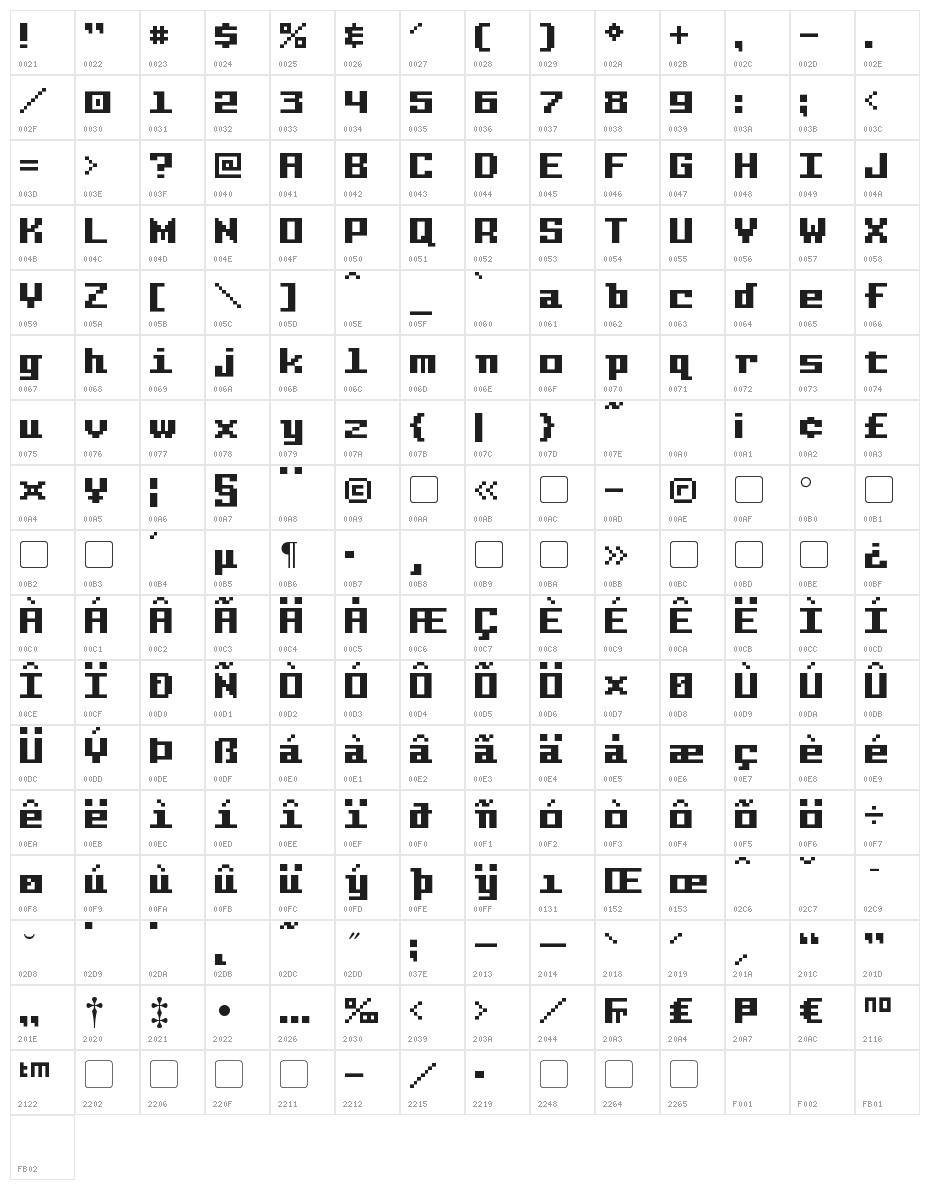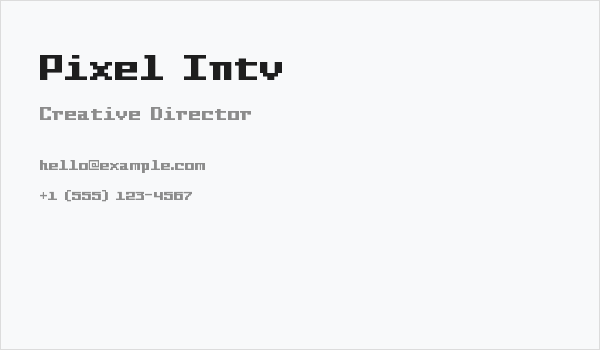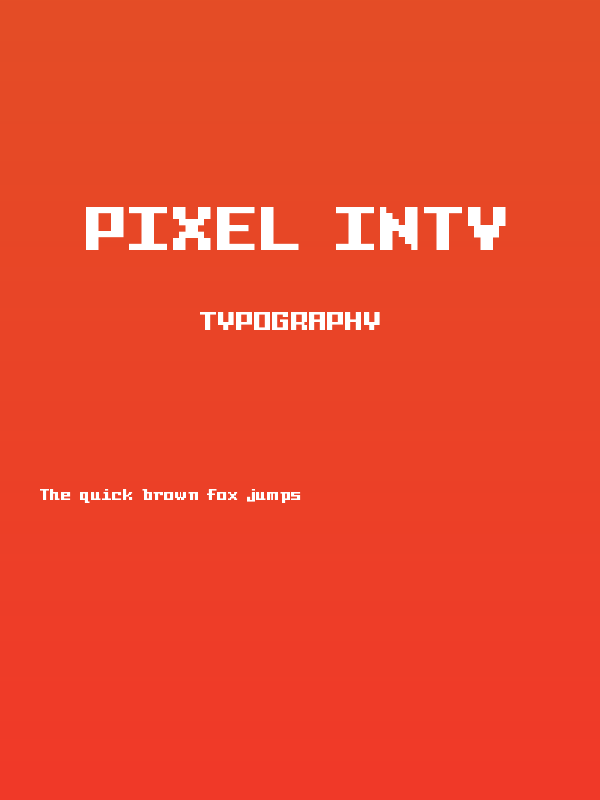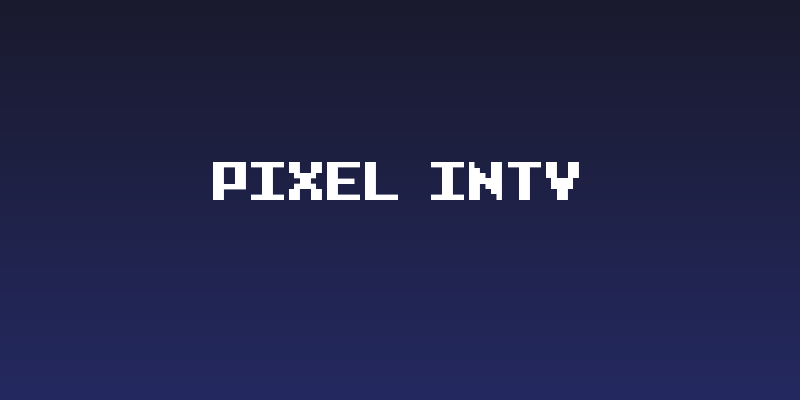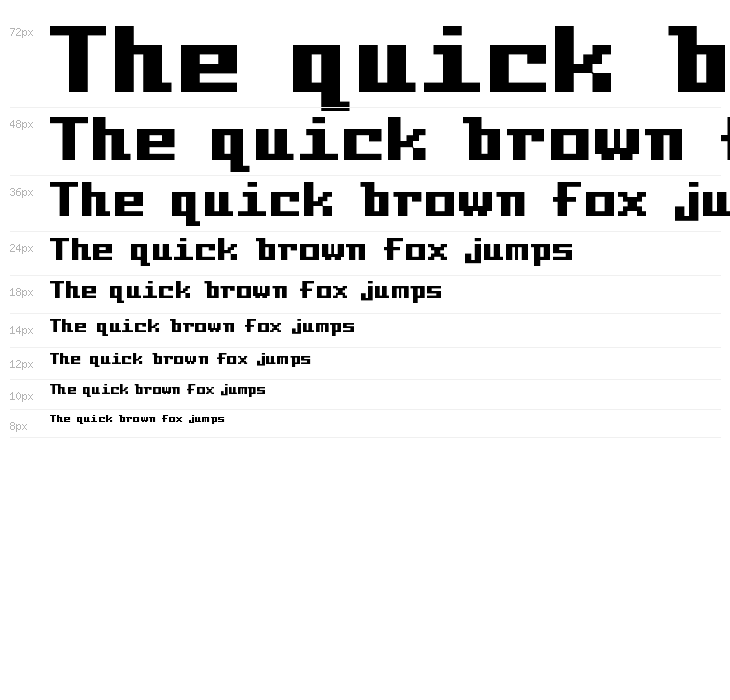
Pixel Intv Font
Pixel Intv Description
This font features a bold, pixelated design reminiscent of early digital displays and retro video games. Each character is constructed with a blocky, grid-like structure, emphasizing a strong geometric form. The uppercase and lowercase letters maintain a consistent height, contributing to a uniform appearance. Numbers and special characters follow the same pixelated style, ensuring a cohesive look across all elements. The font's simplicity and clarity make it highly legible, even at smaller sizes, while its nostalgic aesthetic evokes a sense of vintage digital technology.
| Use Case | Logos, Headlines, Digital Art |
| Proposed Projects | Ideal for video game design, digital art projects, retro-themed posters, and any creative work seeking a nostalgic digital aesthetic. |